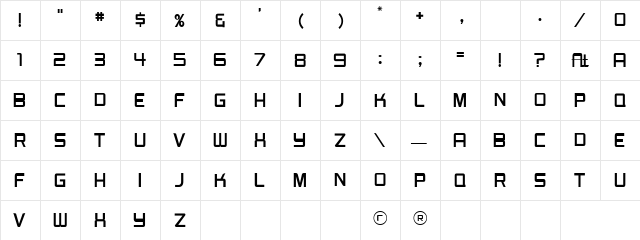
Burger Joint JL Regular
| Foundry | Jeff's Fonts & Dingbats |
| Designer | Jeff Levine & Ray Larabie |
Design Context for Burger Joint JL Typeface
Burger Joint JL is a composed and adaptable typeface that performs quietly and consistently across a wide range of design contexts.